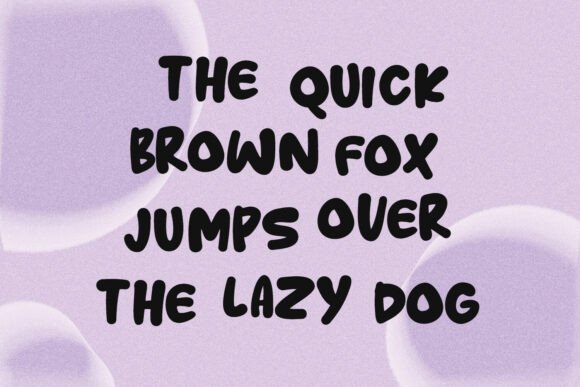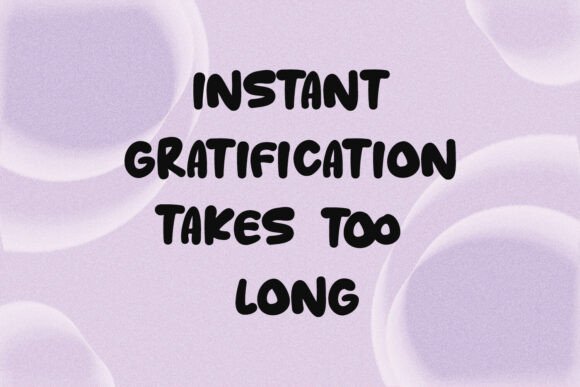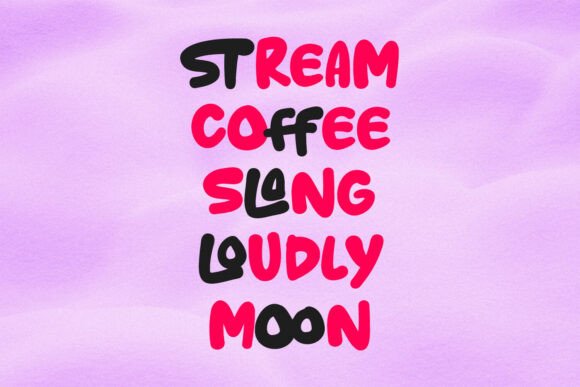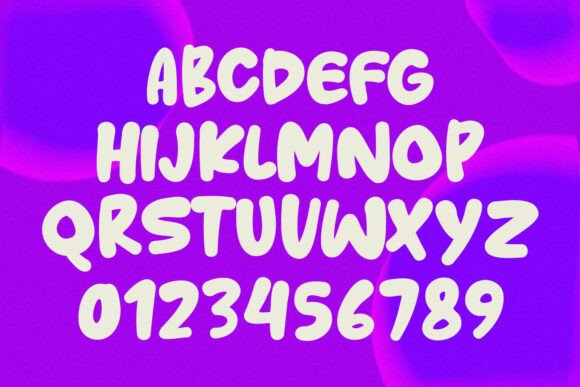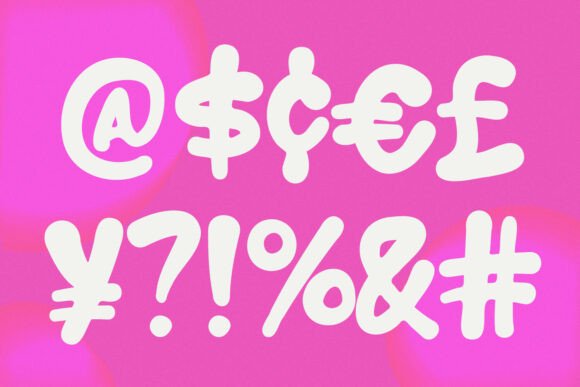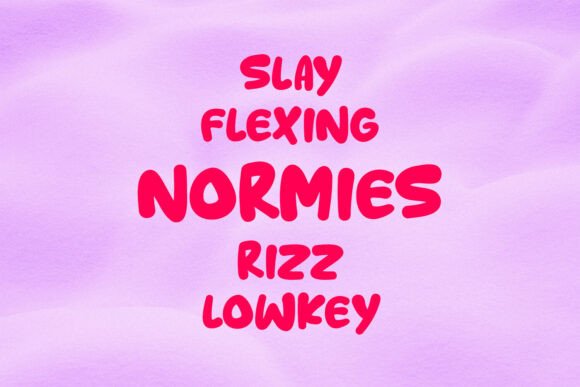
Introduction to Scola Moow Font
Scola Moow is a bold, rounded handwritten font full of personality and charm.
With playful letterforms, smooth curves, and subtle ligatures, it adds a creative, hand-crafted touch to any design Its friendly, approachable style makes it ideal for everything from logos and social media graphics to movie titles, book covers, and beyond.
Key Features of Scola Moow Font
Why Choose Scola Moow Font?